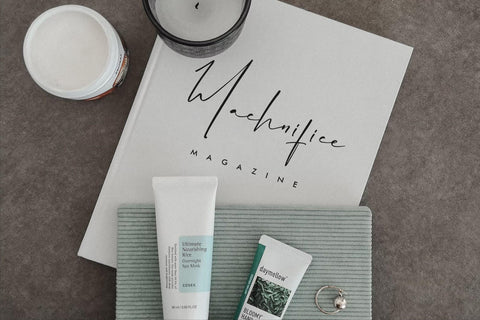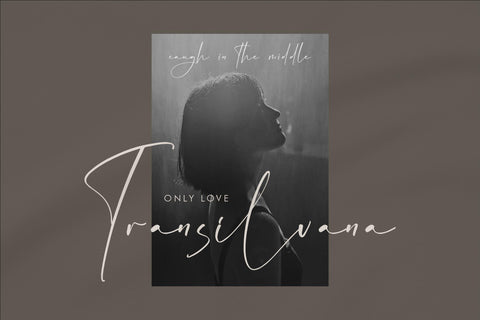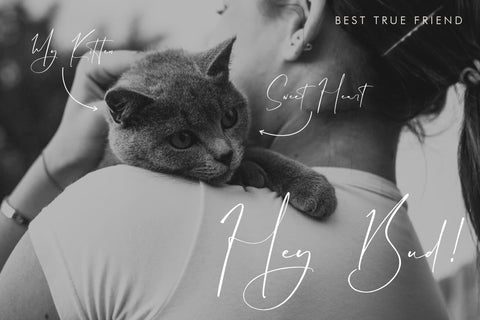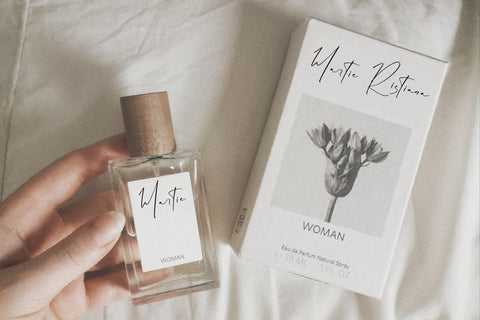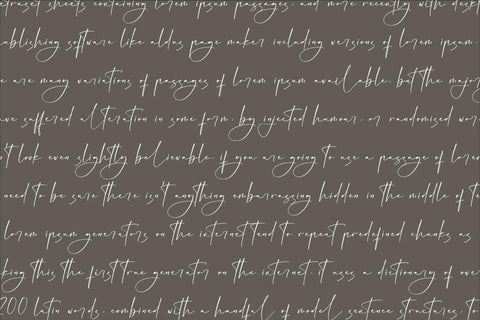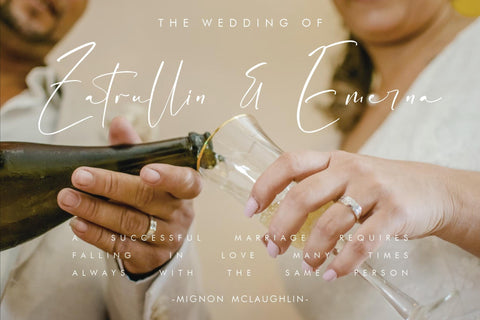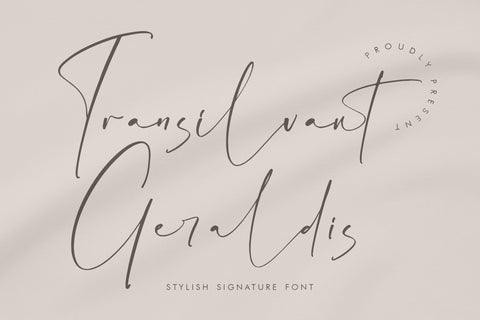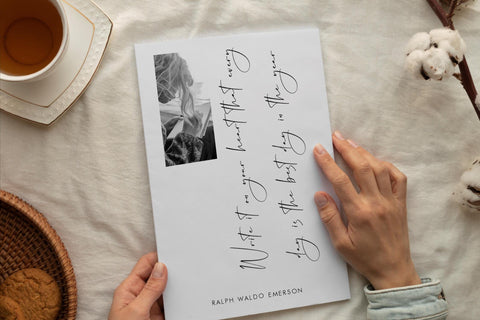
Transilvant Geraldis - Stylish Signature Font
Proudly present Transilvant Geraldis - Stylish Signature Font , created by Storytype,
A luxury script that has own unique style & modern look.